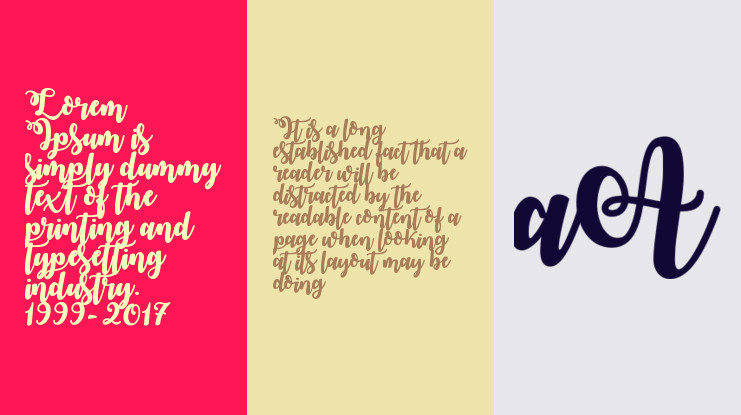
October Twilight Font
October Twilight Font is considered as the bet text generator. It is mostly using in designs. This typeface is also known as the Moon font.
This works well for advertising and marketing a textured with a retro drop shadow like harabara mais font so that you can deliver an elderly revel into your artwork.